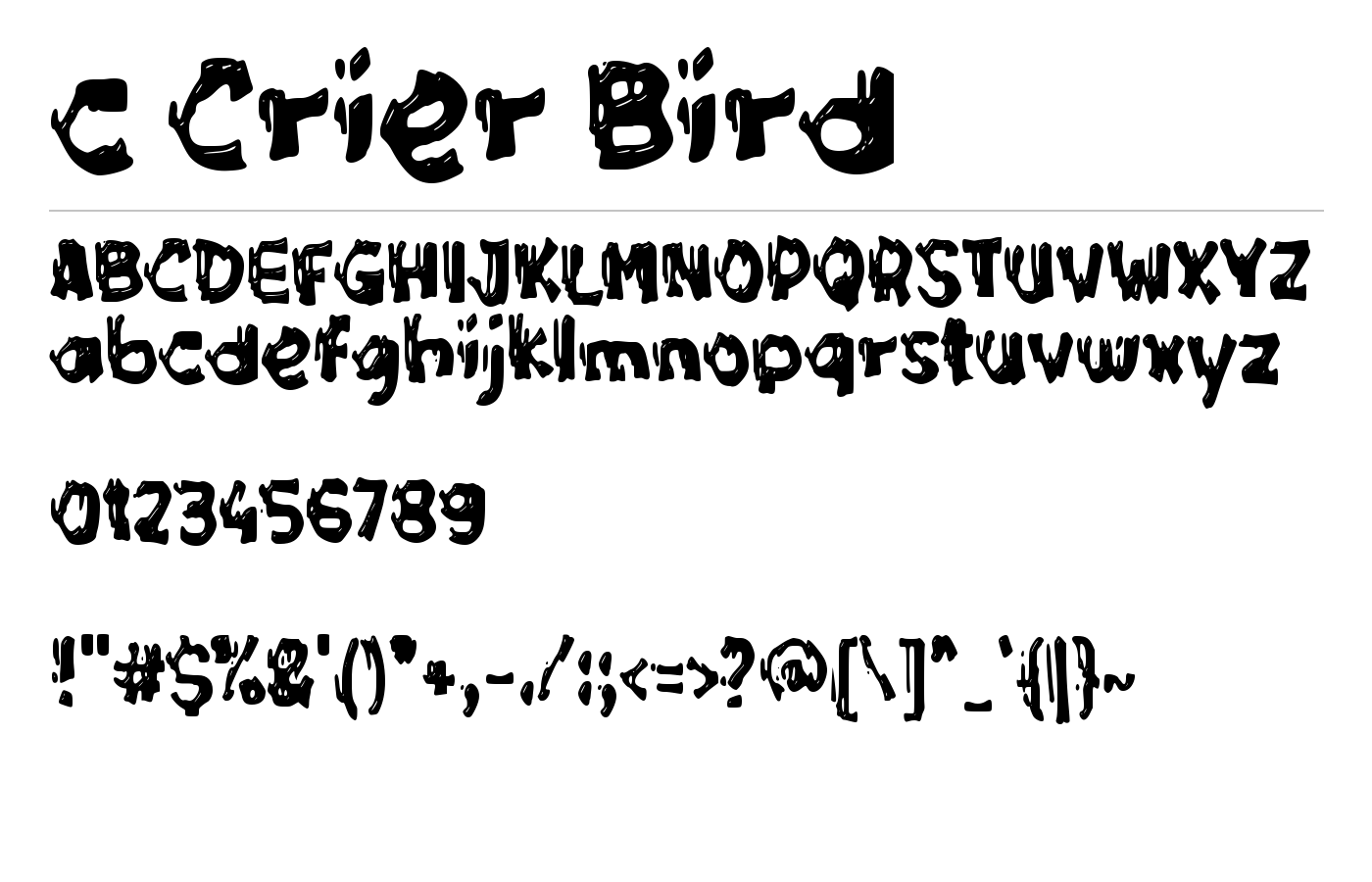
C Crier Bird is a bold and quirky display font featuring irregular, textured letterforms that give it a raw, hand-crafted feel. Its playful and dense shapes make it ideal for creative, informal projects where a unique, eye-catching style is desired, such as posters, logos, and artistic branding. This font’s energetic personality adds a distinctive, approachable charm that works well in expressive and fun design contexts.
c Crier Bird Font
About c Crier Bird Font
| Font family | c Crier Bird Font |
| Designer | Wahyu Eka Prasaetya |